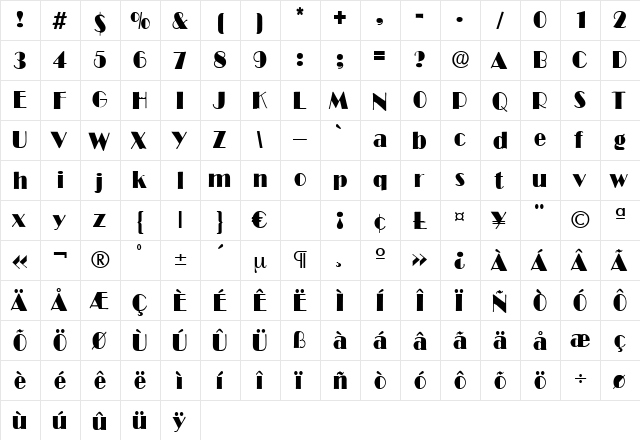
BroadwayCondensed Regular Font Preview
BroadwayCondensed Regular
Design Context for BroadwayCondensed Typeface
BroadwayCondensed is a composed and adaptable typeface that performs quietly and consistently across a wide range of design contexts. Its narrow stance lets it pack a punch even in space-constrained designs.